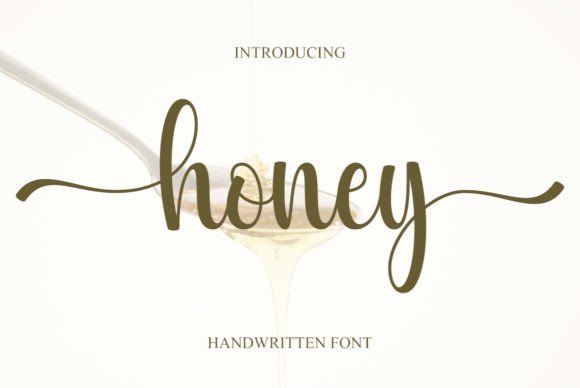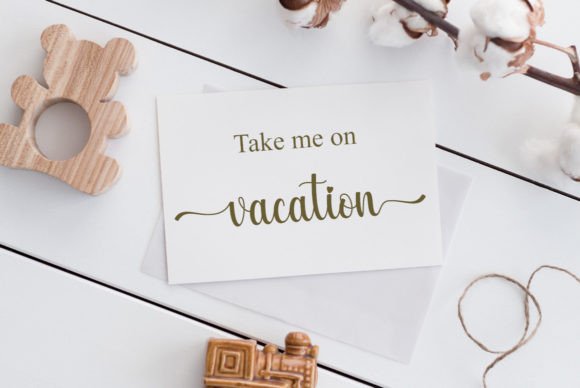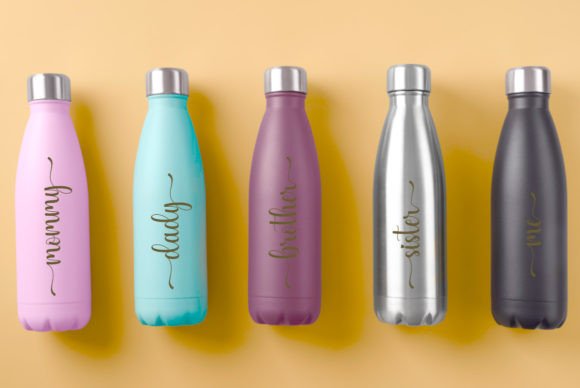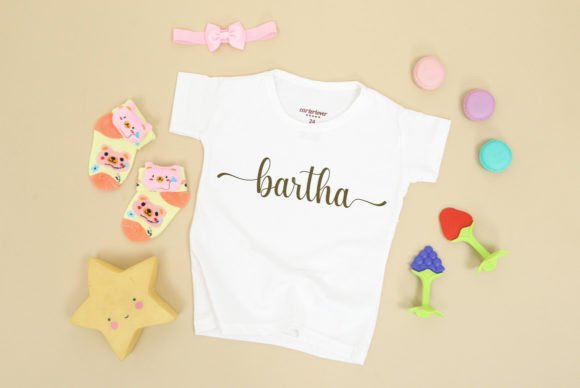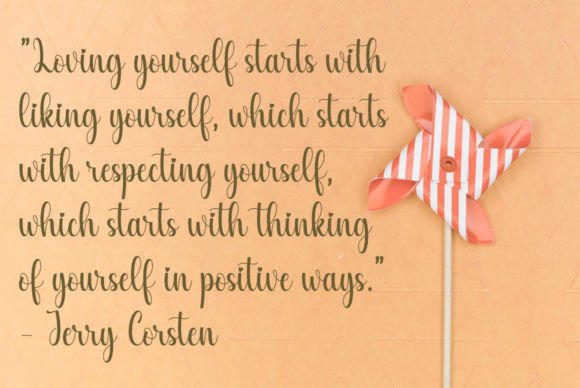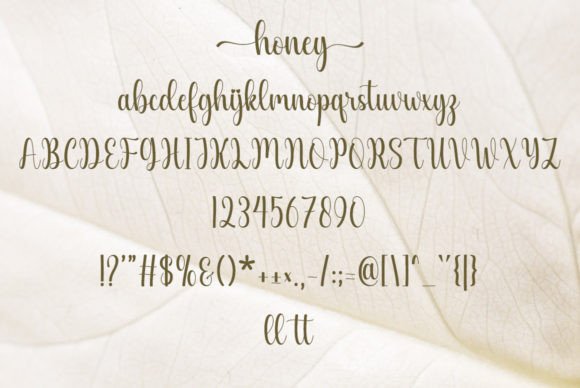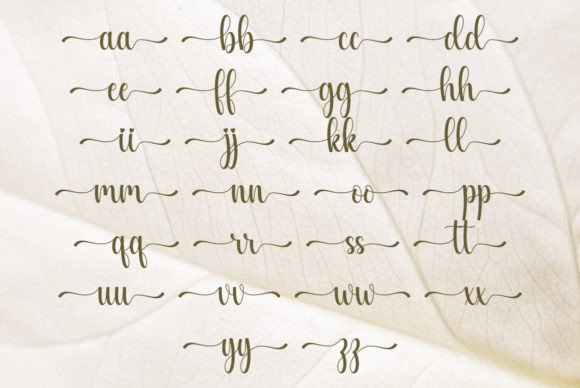
The Sweetest Addition to Your Design Toolbox: Honey Font
Have you ever stared at a blank page, pen in hand, and felt the weight of creativity settle upon you? The pressure to produce something truly special can be overwhelming. But what if you had the perfect tool to help spark your imagination? Enter Honey Font, a delicate and elegant handwritten font designed to bring your projects to life.
This beautiful font is the perfect addition to any designer’s toolkit, offering a timeless and distinct style that’s sure to elevate your work. With Honey Font, you’ll be able to create spectacular designs that exude warmth and sophistication. Plus, its PUA encoding makes it easy to access all of the glyphs and swashes, giving you endless possibilities for customization.
Honey Font Key Features
- Unique Characteristics: Honey Font features a distinctive, cursive script with a warm and inviting feel, making it ideal for use in creative and emotional contexts, such as invitations, greeting cards, and wedding designs.
Honey Font Review
I recently had the chance to work with the Honey Font, and I must say it’s a sweet addition to any design project. ✨
Here are some of the things that stood out to me:
- Unique, rounded edges give it a friendly and approachable feel
- The font’s fluidity makes it perfect for long blocks of text or headlines
- The extensive character set includes a wide range of languages and special characters
However, as with any font, there are some limitations to consider: ⚠️
- Some users may find the font too playful or cursive for formal projects
- The weight of the font can make it difficult to read at smaller sizes
- There’s limited support for Asian languages and non-standard characters
Overall, the Honey Font is a great choice for designers looking for a friendly and approachable font. While it may not be suitable for every project, it’s definitely worth considering for those that need a warm and inviting feel.
Getting the Most Out of Honey Font
To get the most out of Honey Font, experiment with different font sizes, colors, and styles to find the perfect combination for your design. You can also use Honey Font in conjunction with other fonts to create a unique and visually appealing look.
Honey Font is commonly used for headings, titles, and other display text. It’s also a great choice for creating a warm and inviting tone in your designs. Some common use cases include:
- Wellness and self-care marketing
- Home decor and furniture design